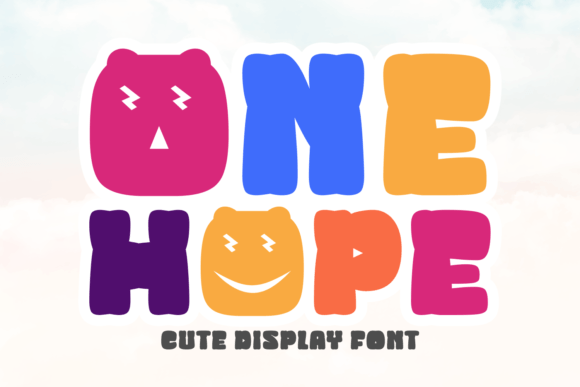
Introducing One Hope Font, a display font that bursts with playful energy and infectious charm. Its big, bright characters and bouncy curves dance across your designs, adding a touch of whimsical delight. Perfect for injecting fun and personality into your projects, One Hope Font is a breath of fresh air in the world of typography.
Express your creativity with One Hope Font's dynamic style. Its playful nature makes it ideal for children's designs, invitations, posters, and social media graphics. Let your imagination soar as you explore the endless possibilities of this captivating font.
One Hope Font is more than just a font; it's an experience. Its charming characters add an emotional depth to your designs, connecting with your audience on a personal level. Whether you're a seasoned designer or just starting out, One Hope Font is the perfect choice to add a touch of magic to your work.
Don't let your designs be ordinary. Embrace the extraordinary with One Hope Font. Step into a world of creativity and let your imagination run wild. Download One Hope Font today and embark on a typographic adventure that will leave your audience spellbound.